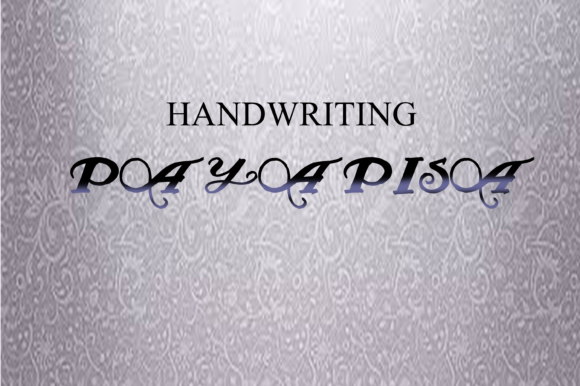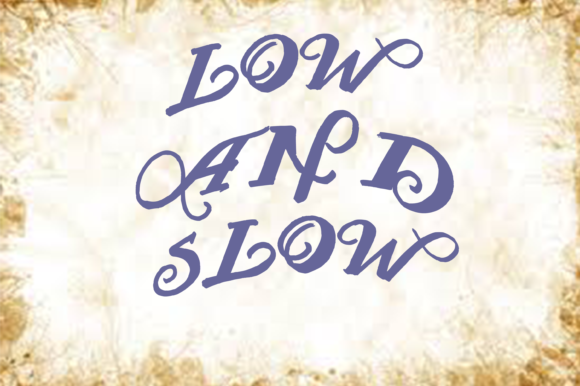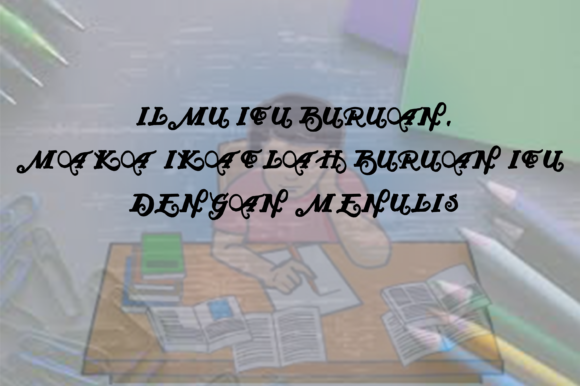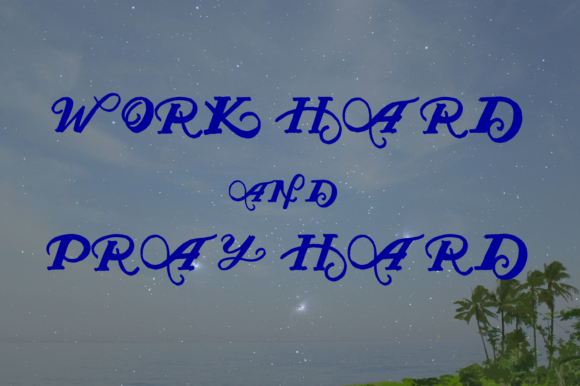
Payapisa Font
About Payapisa Font
The Payapisa is a fun and bold handwriting font. It has a fresh and modern style while still keeping an elegant feel.
It’s suitable for logos, branding, greeting cards, posters, and much more!